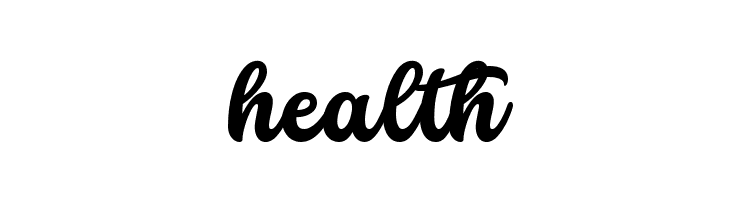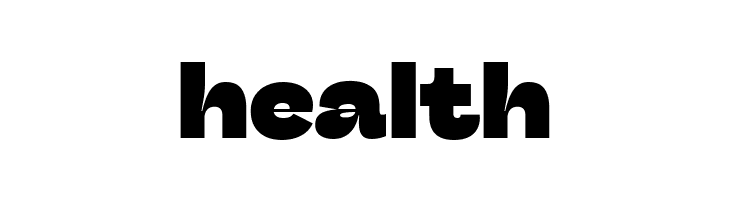
A bold, modern sans-serif font with thick, uniform strokes.
A bold, semi-expanded sans-serif font with a modern and impactful style.
A bold, heavy font with strong strokes and a modern aesthetic.
A bold, flowing script font with elegant, connected characters.
A bold, cursive font with interconnected, expressive characters.
A bold, heavy font with wide, rounded characters ideal for impactful headlines.
A bold, italic font with a dynamic and modern style.
A bold, heavy font with a modern and assertive style.
A bold, heavy italic font with a dynamic and impactful style.